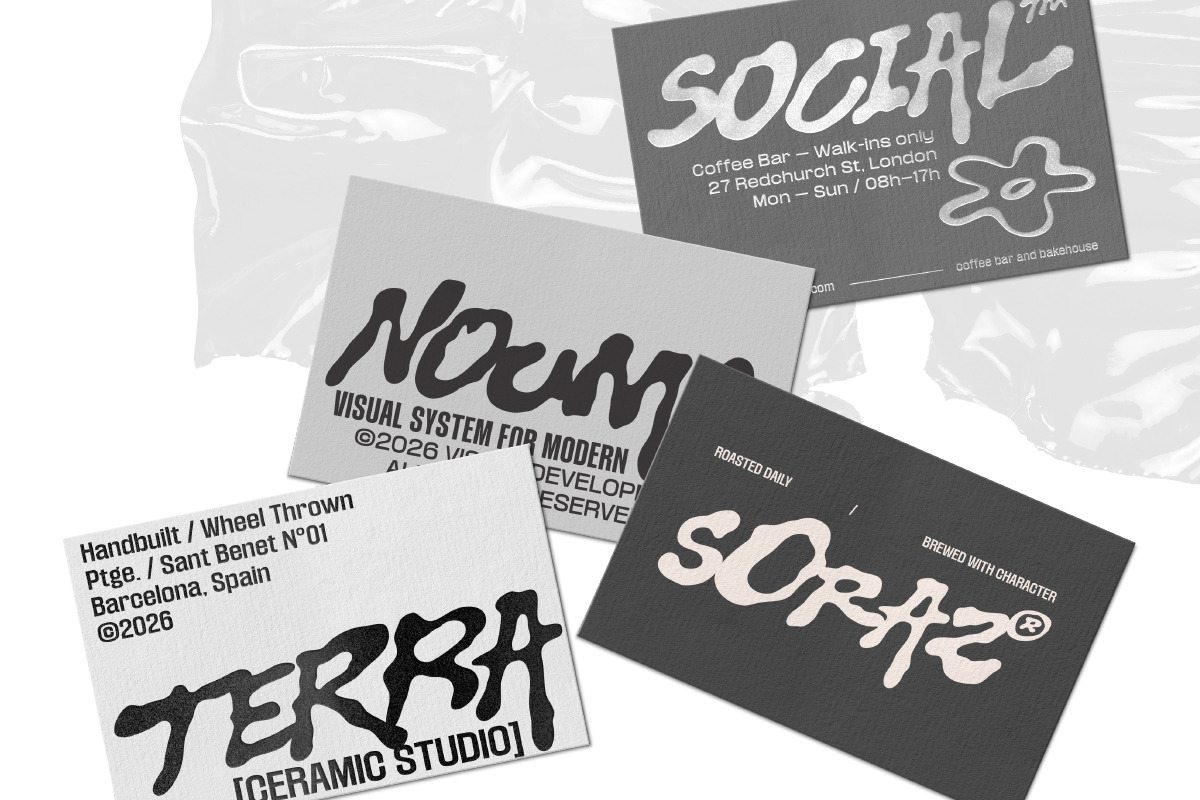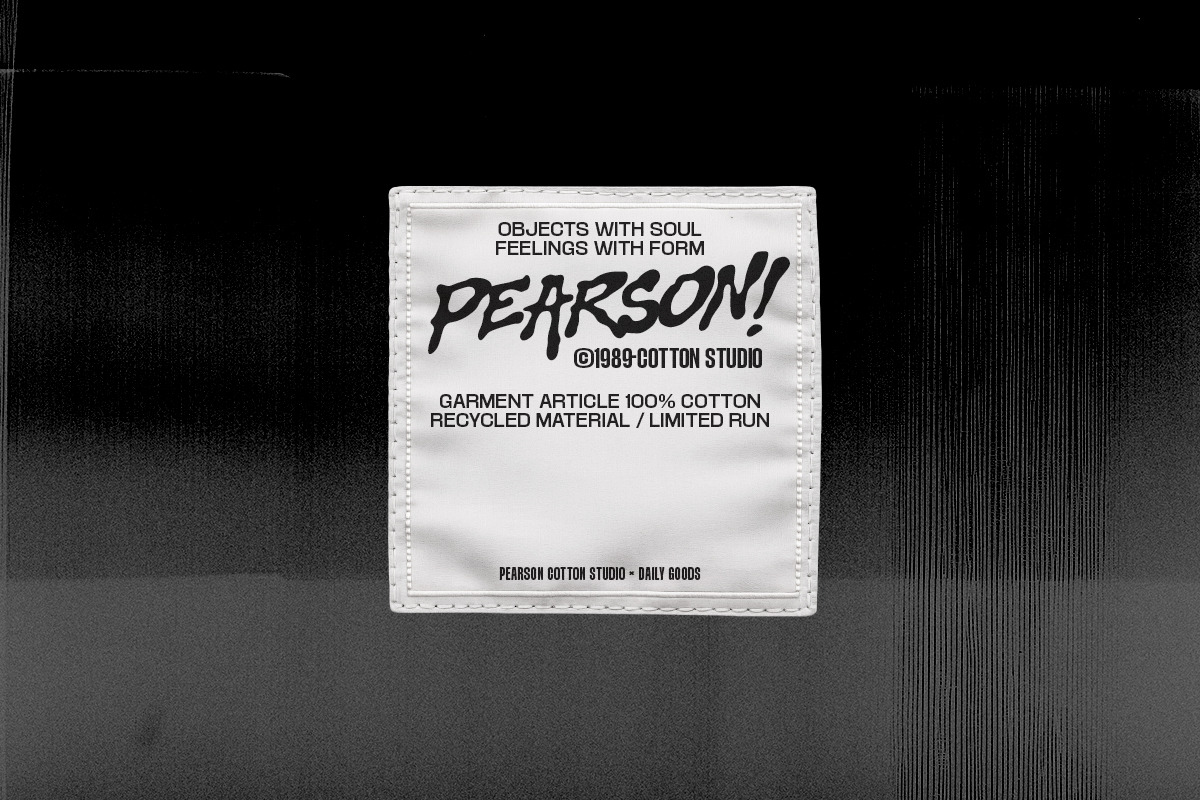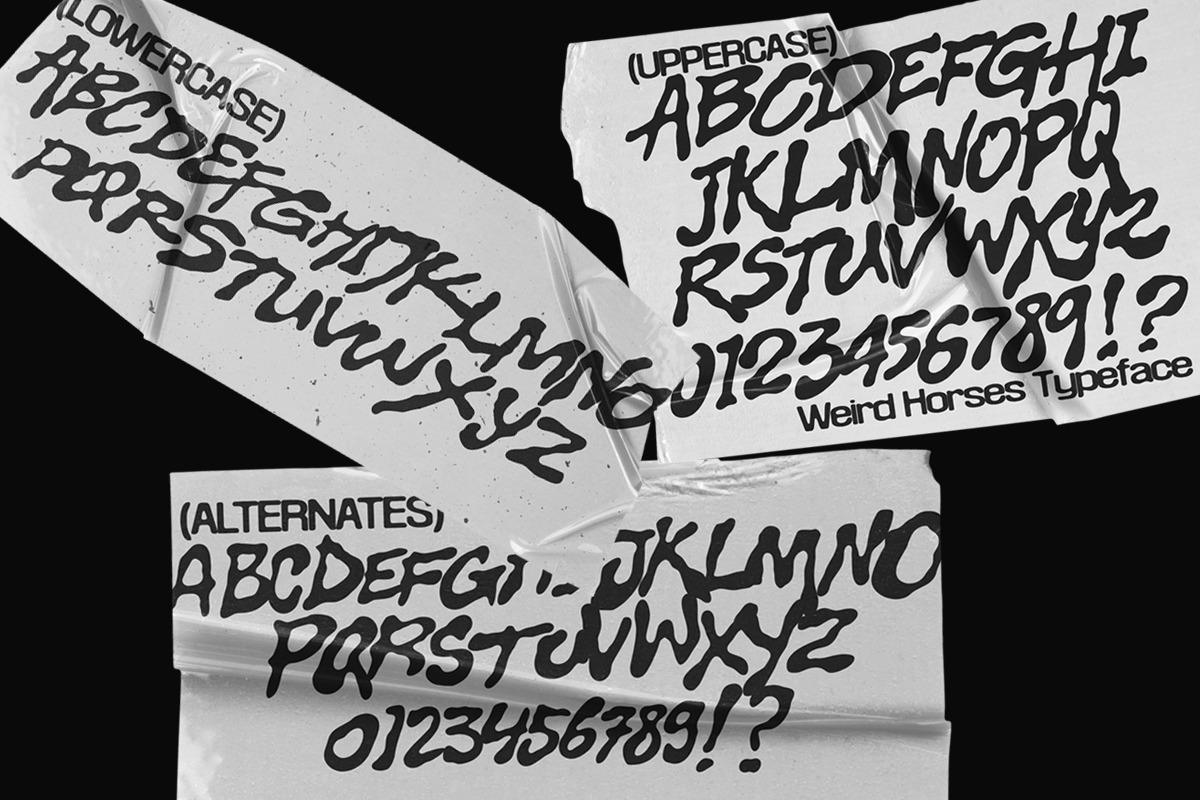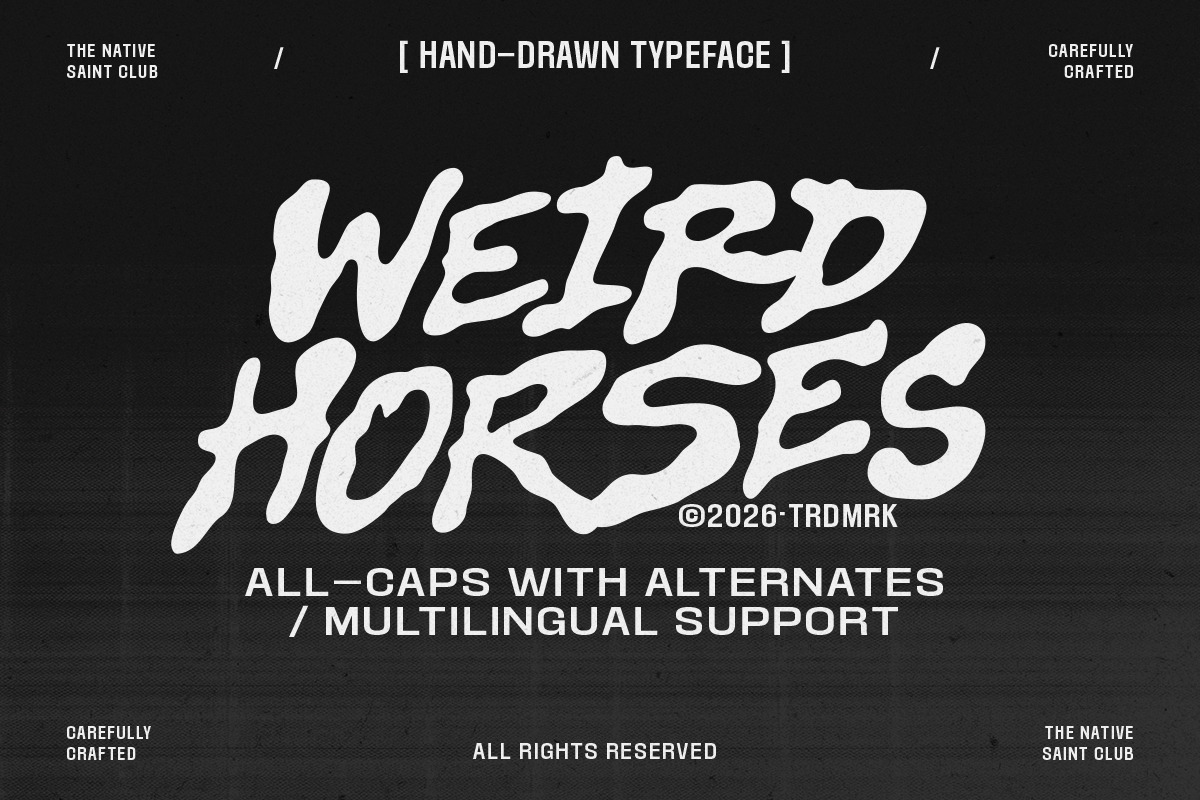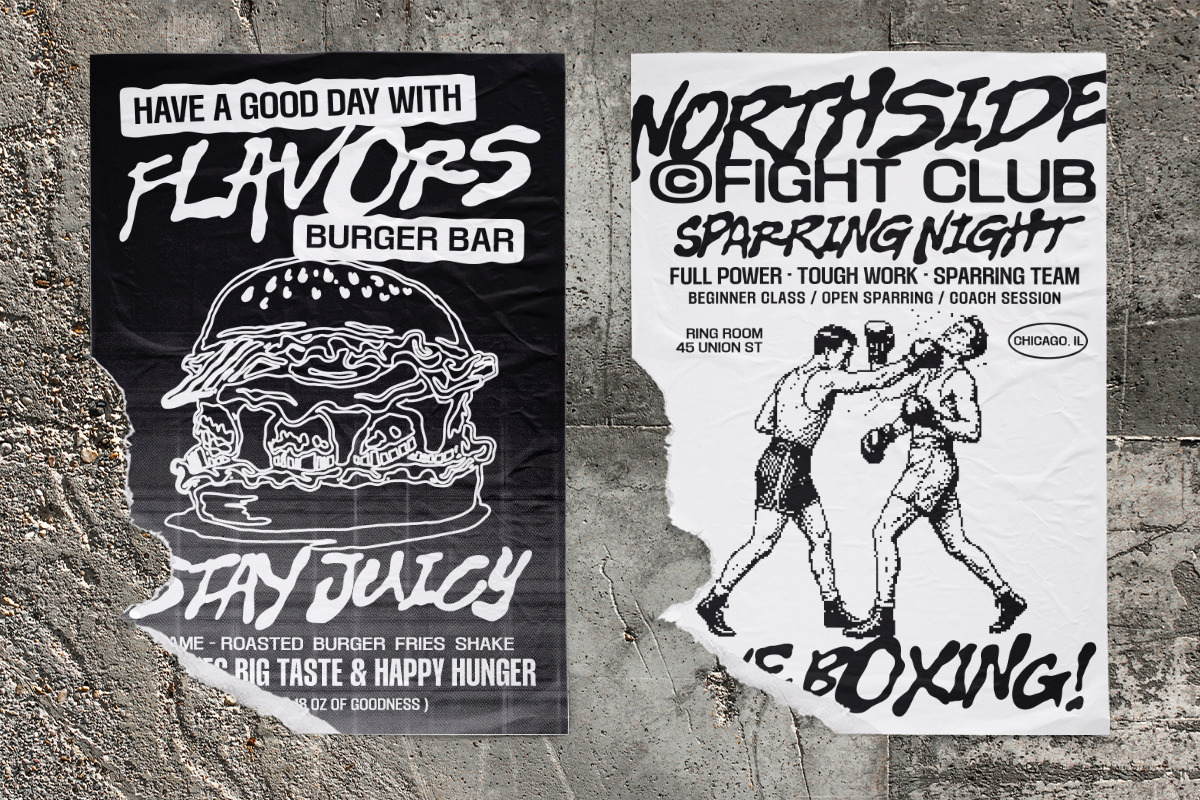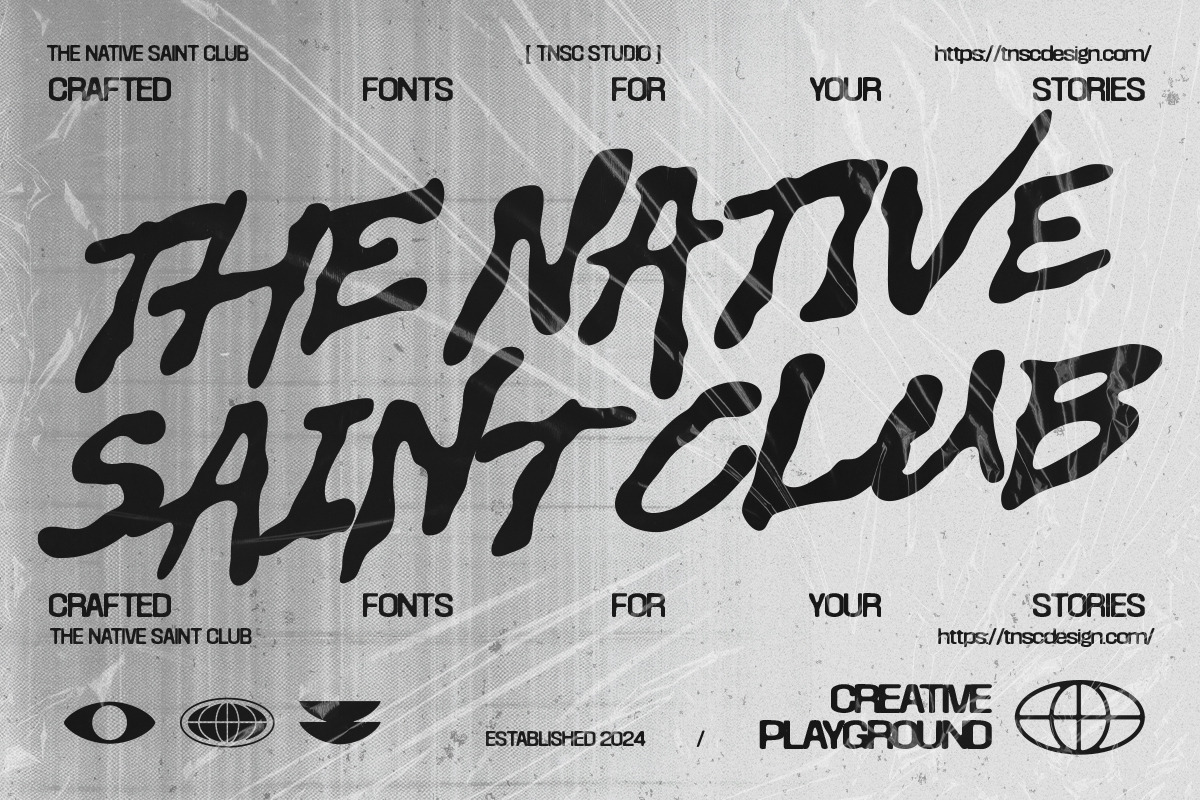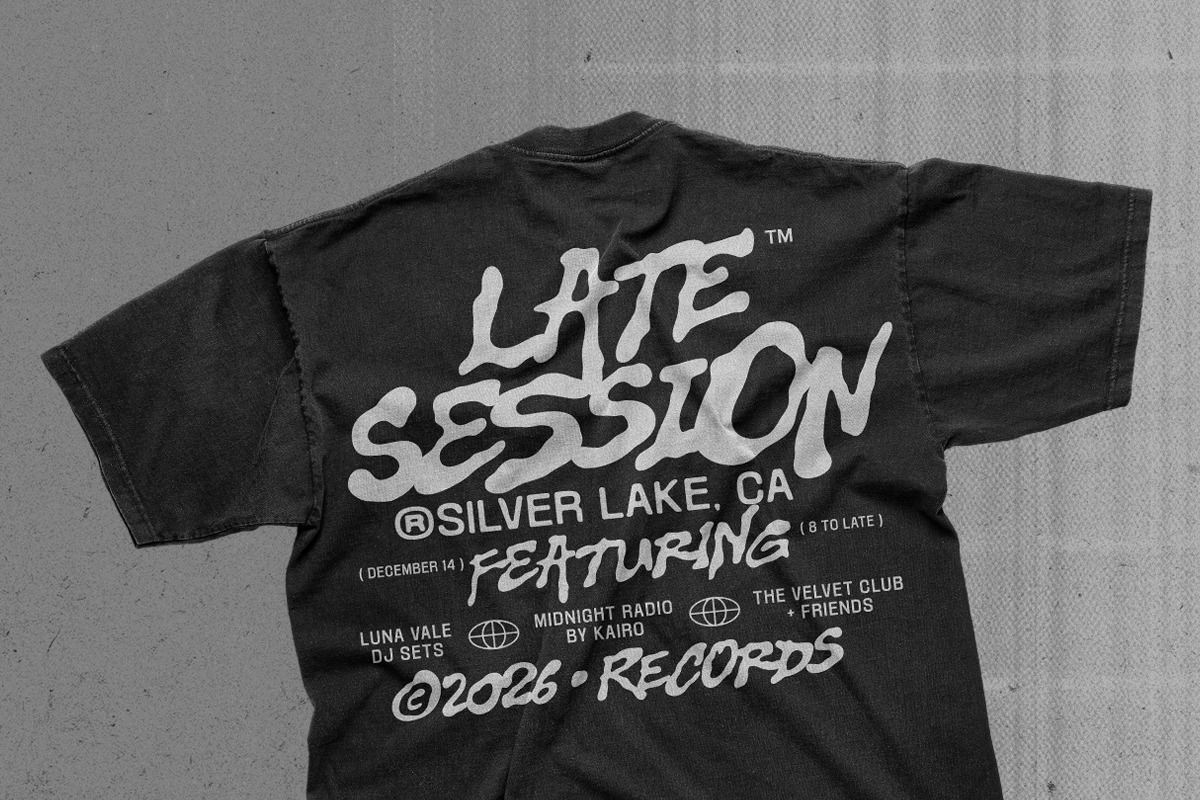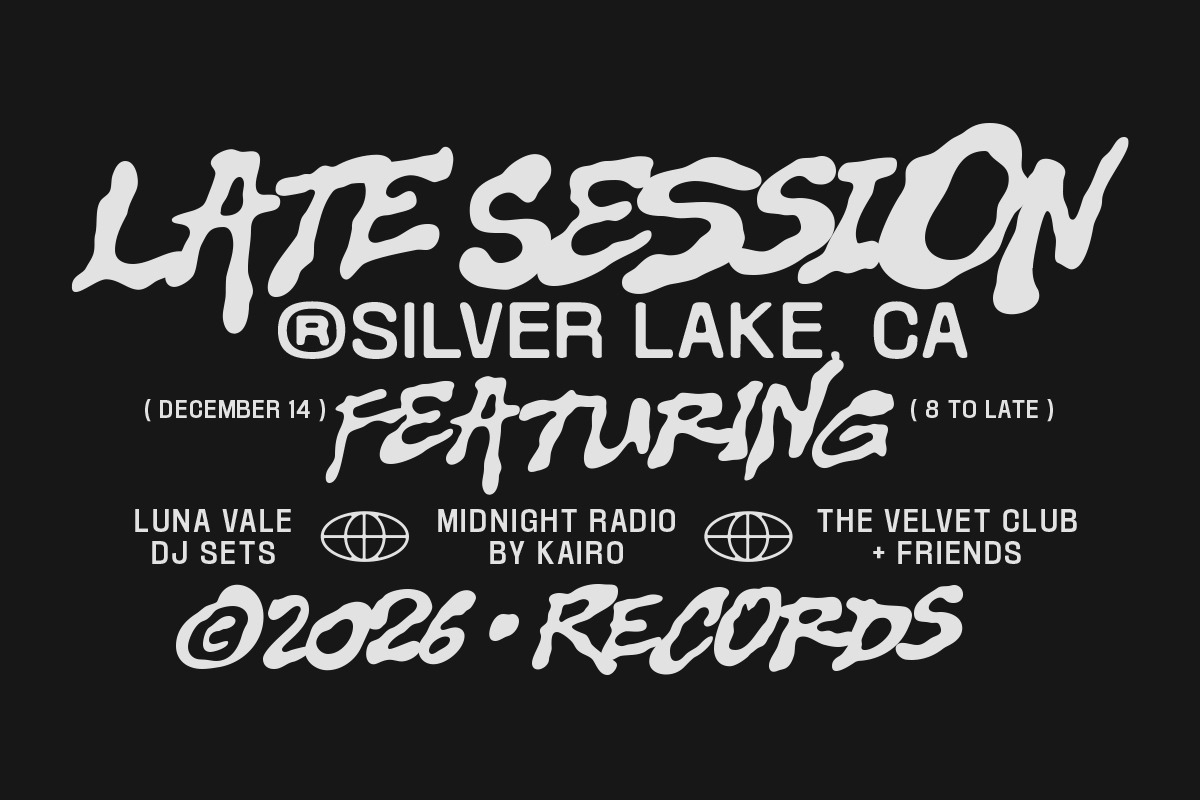
Weird Horses - Hand-Drawn Typeface
Weird Horses is a raw hand-drawn display typeface with bold strokes, irregular shapes, and strong underground energy.
Perfect for posters, merch, music graphics, streetwear, branding, and creative layouts that need a loud handmade personality.